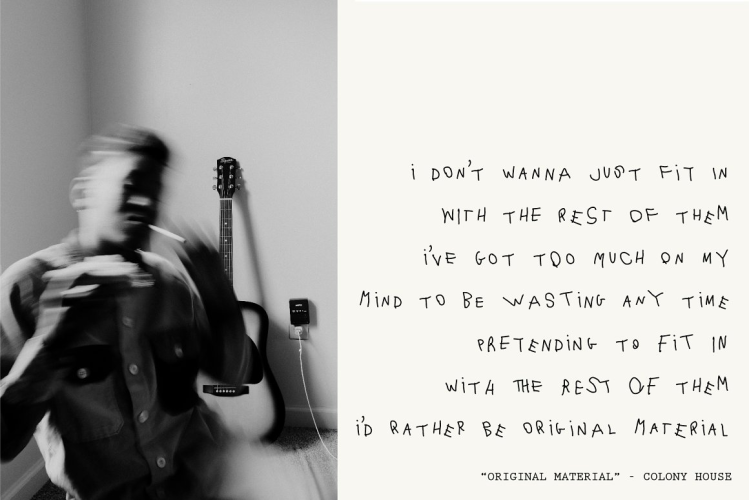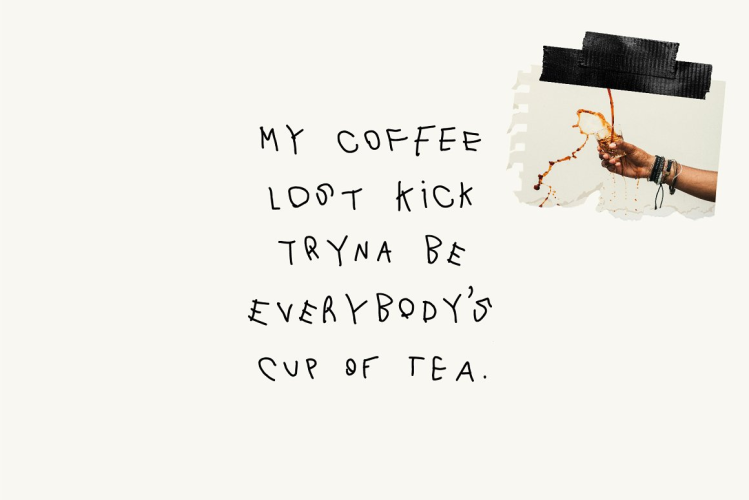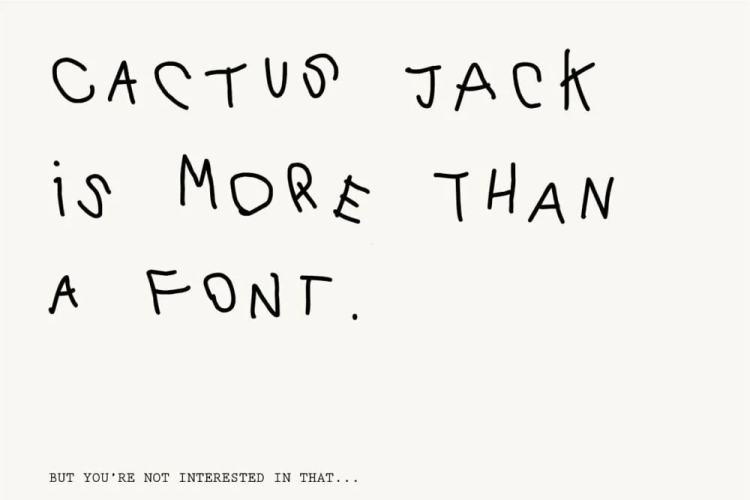
Cactus Jack Font is more than just a font. It’s a feeling in your bones, it’s a perspective on life, it’s a war cry to be heard. But it’s also a font. This gritty and oddly stylish font pack comes with not one BUT TWO hand-drawn fonts. This guarantees you never have to have repetitive characters in your designs. Mix-n-match to your heart’s desire! Perfect for your online quotes, social media campaigns, and more!
Where Cactus Jack Font works best
Cactus Jack Font is built for size: event posters, hero headlines and billboard-style layouts.
High contrast display type like Cactus Jack Font reads instantly in thumbnails and motion graphics.
What is Cactus Jack Font good for?